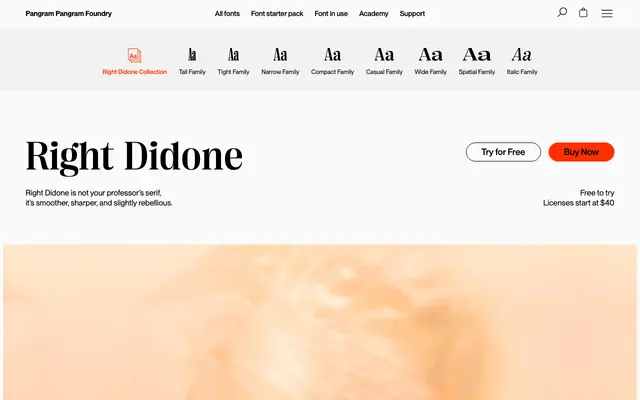
PP Right Didone
PP Right Didone specimen from Pangram Foundry
A contemporary didone by Alex Slobzheninov, 56 styles built by adding serifs to Right Sans rather than reviving a historical model.
Right Didone is a 56-style high-contrast serif by Alex Slobzheninov, part of the Right superfamily. It is structured as eight cuts, including Tall, Tight, Compact, Casual, Wide, Narrow, Spatial and Italic, each with seven weights. Pangram frame the design as Right Sans with serifs added rather than a historical revival, giving it the tall x-height and broad style coverage of a grotesque rather than a classic didone.